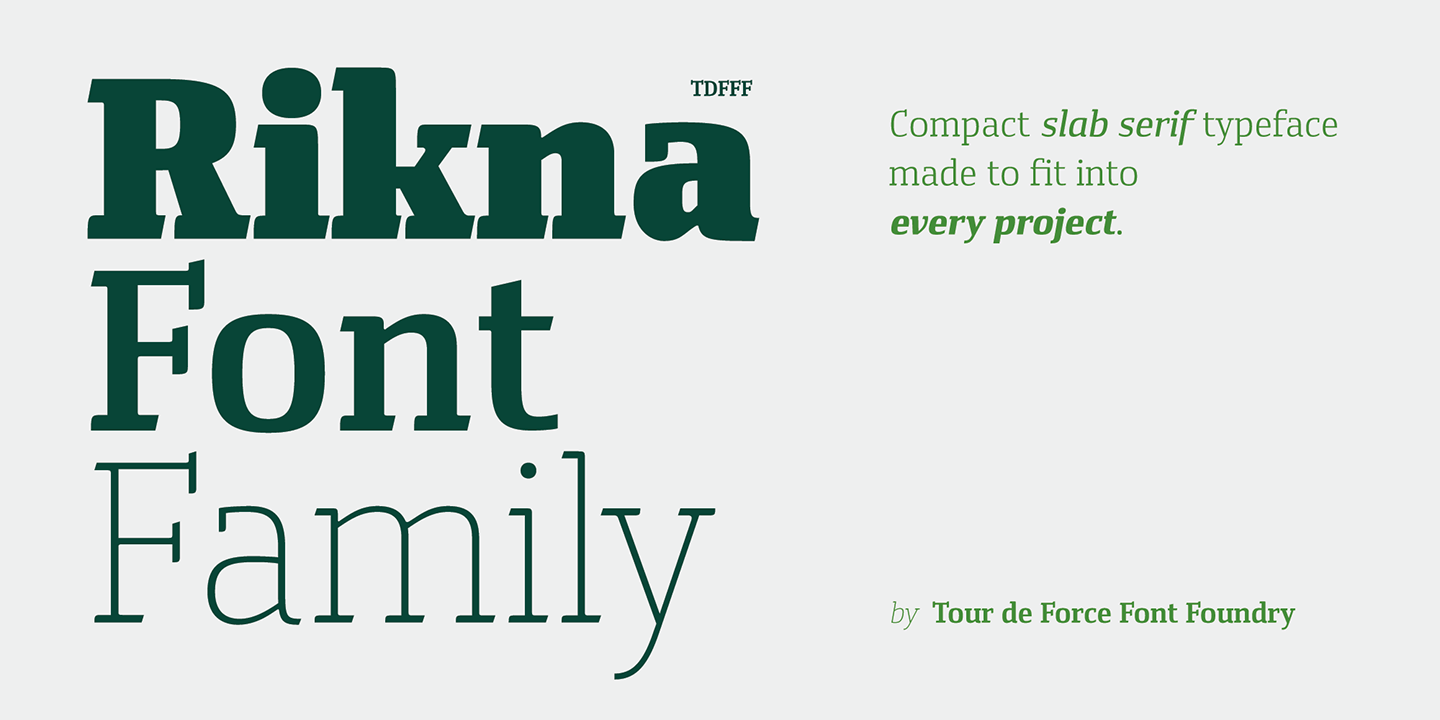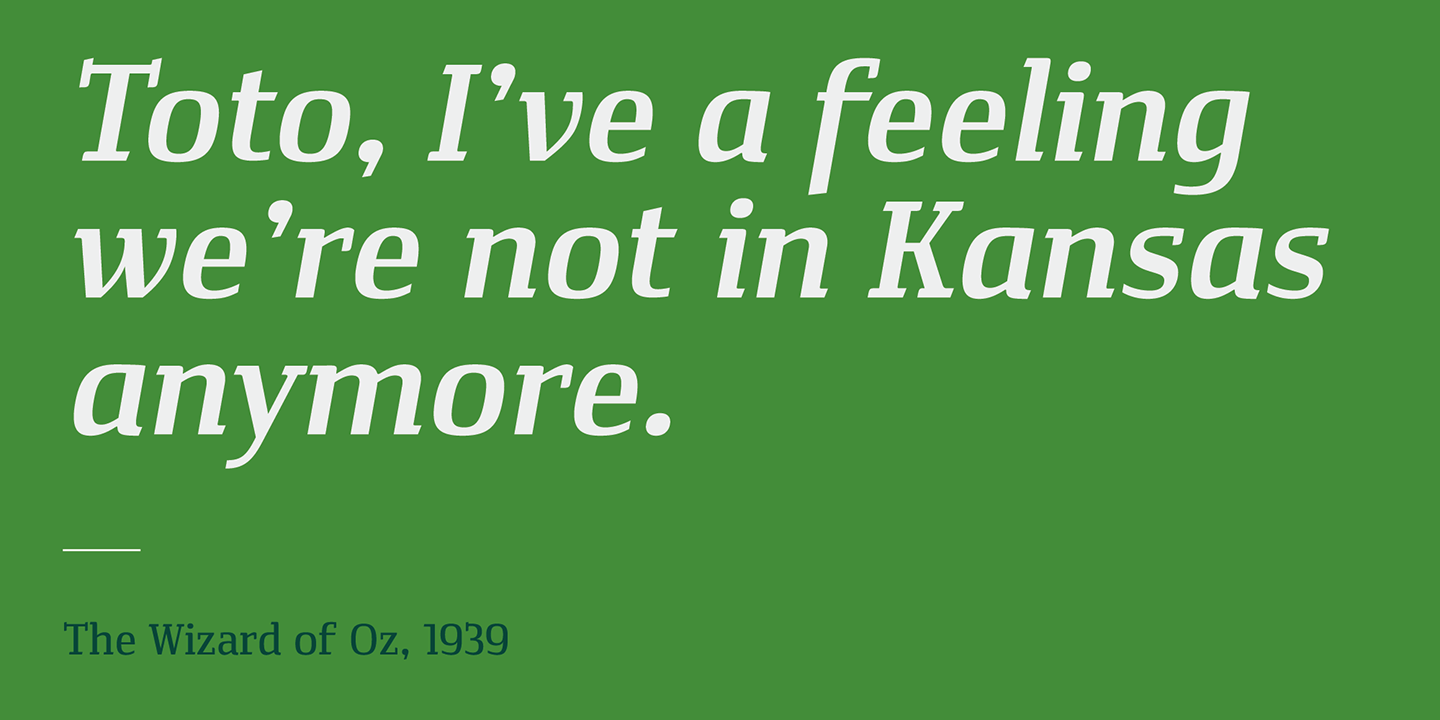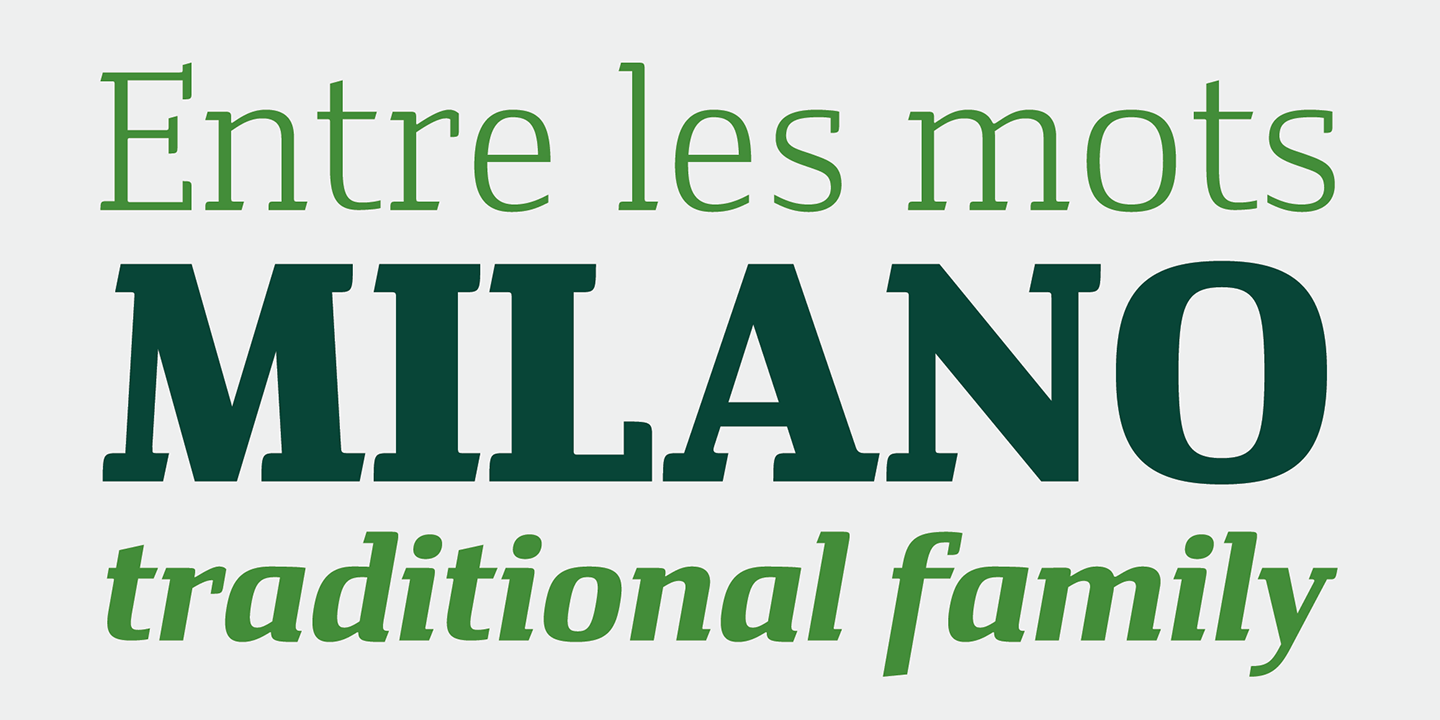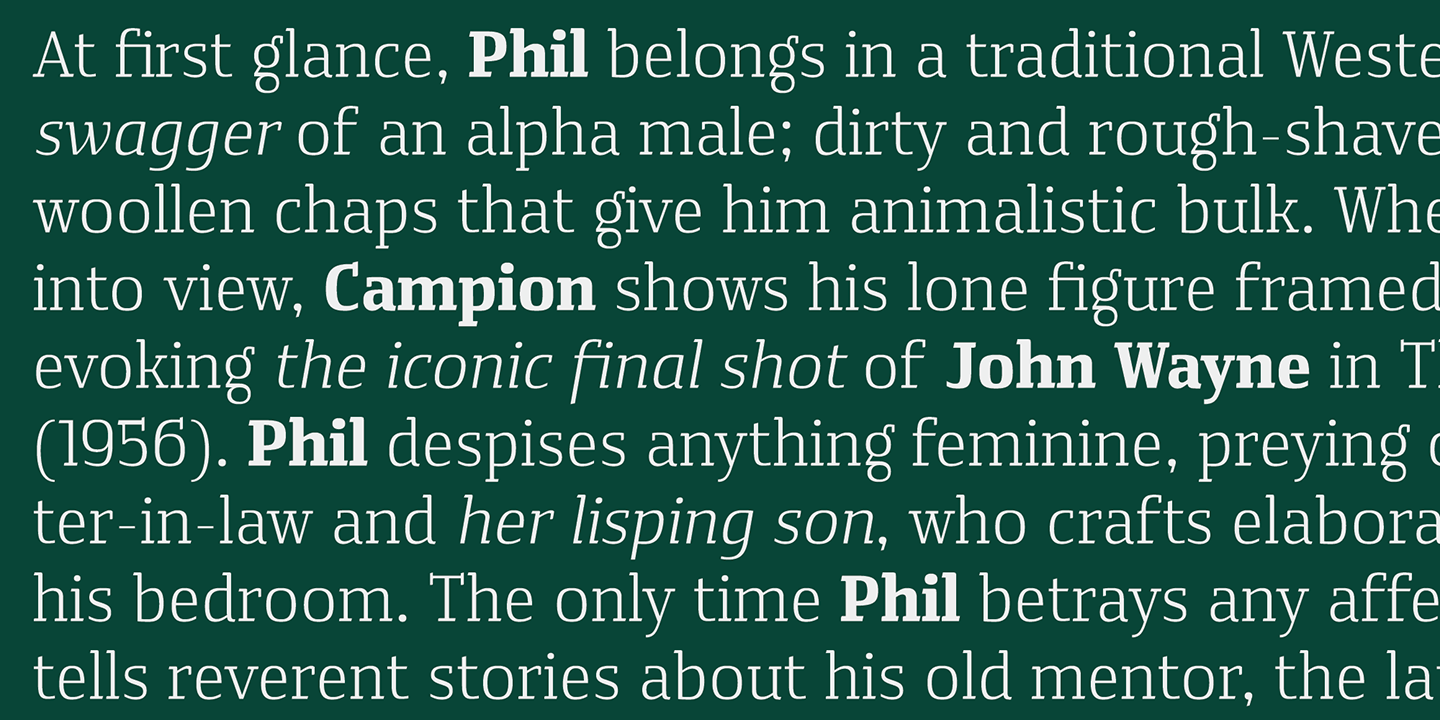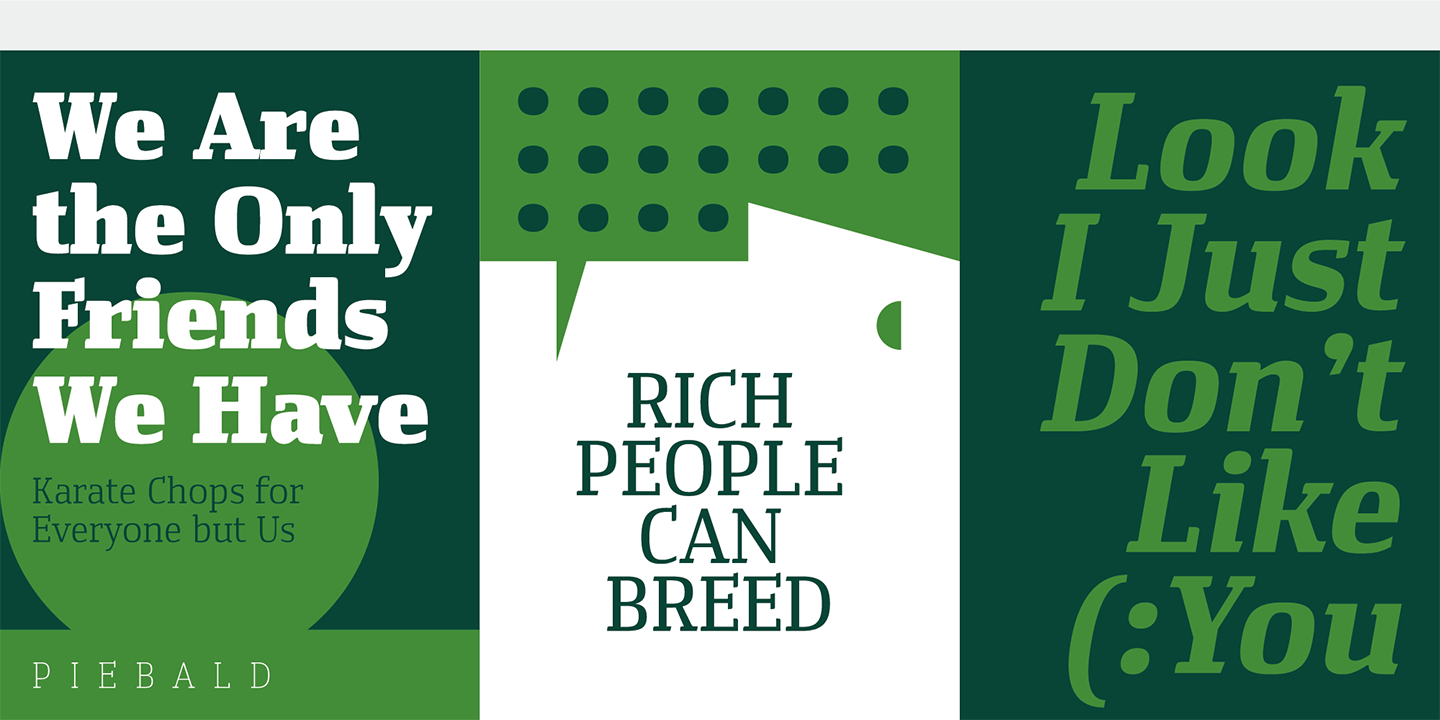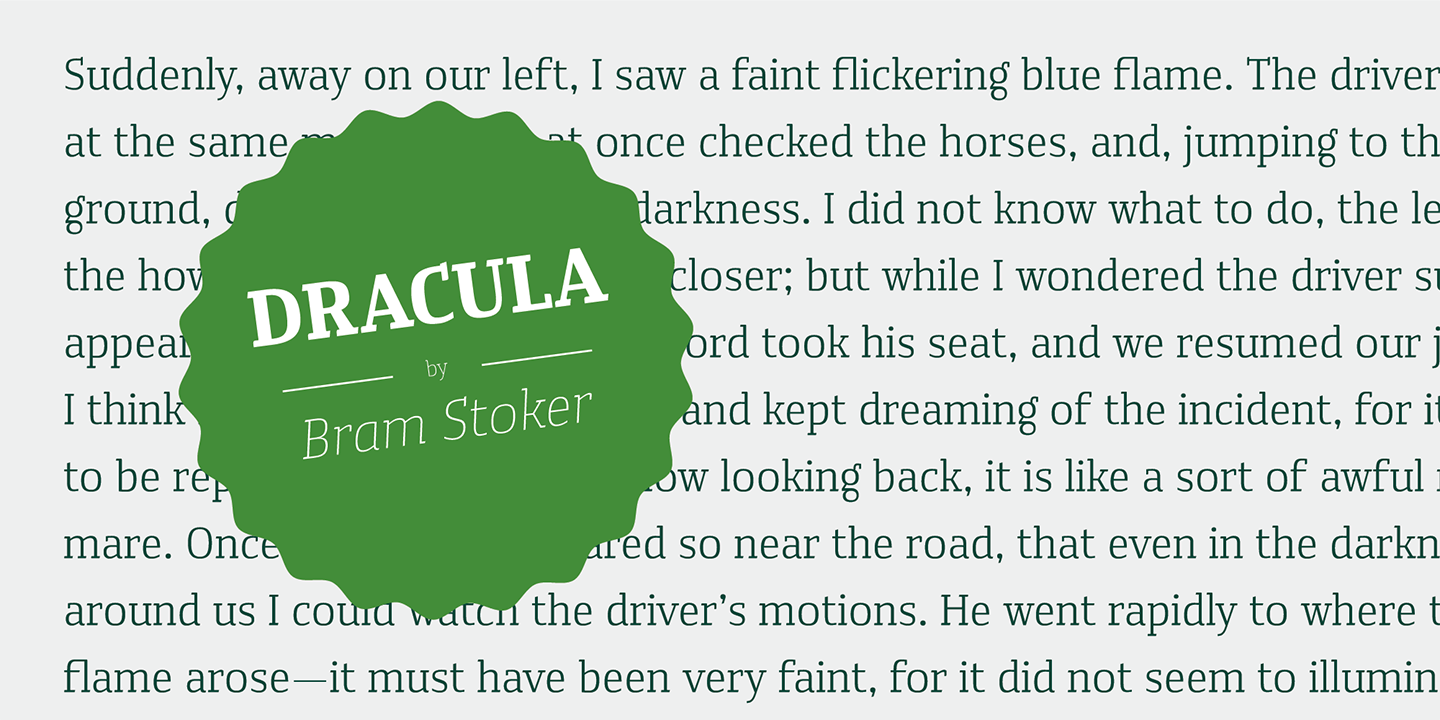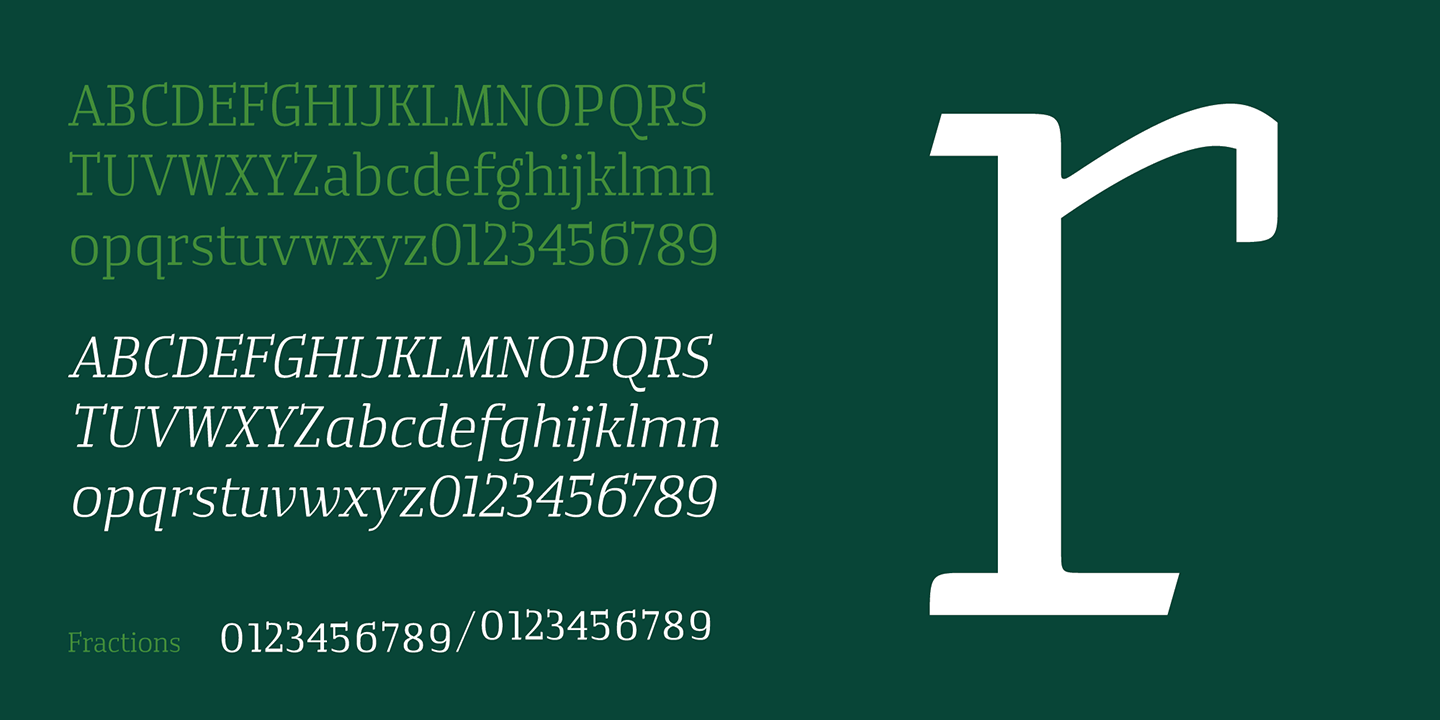
Rikna is compact, solid and gently condensed slab serif font family that comes in 14 styles.
Imagined as family with ability to be used as main project font, Rikna's visual flow of characters in composed paragraph reveals its high legibility in all sizes. With distinctive serifs, Rikna contains display characteristics with recommend the font for use in bigger sizes as well.
Contains Fractions as Open Type Feature.